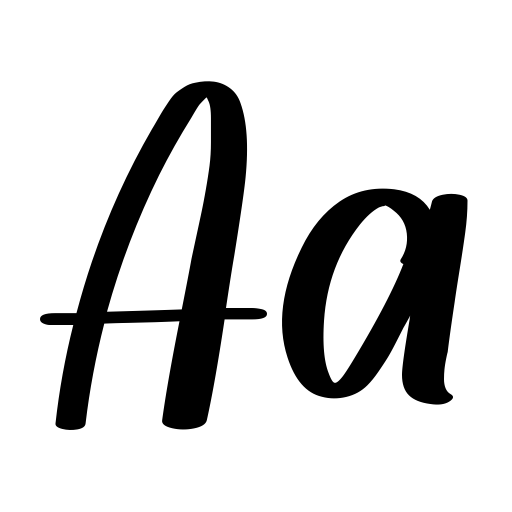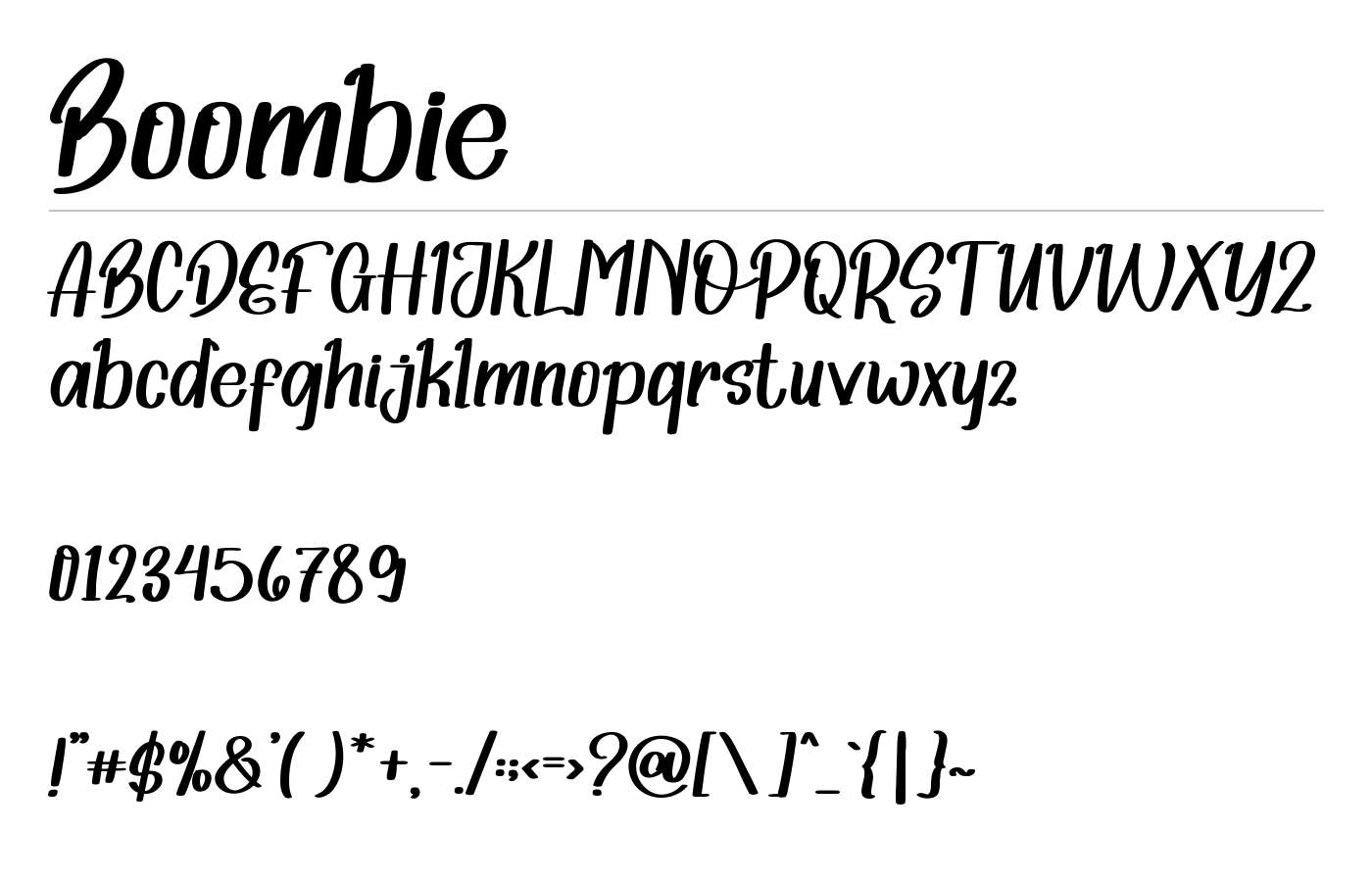
Boombie is a playful and elegant script-style font with flowing, slightly condensed letterforms that blend casual charm with a modern twist. It features moderate stroke contrast and smooth curves, making it ideal for branding, headlines, and creative projects that seek a friendly yet stylish feel. This font works well for logos, invitations, and packaging that want to convey creativity and approachability with a touch of sophistication.
Boombie Font
About Boombie Font